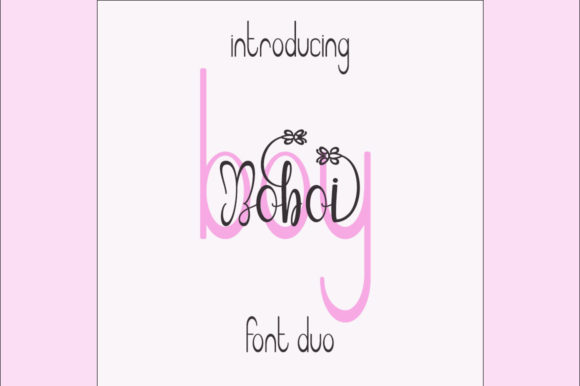
Boboiboy Font: The Sweet and Lovely Duo for Your Design Needs
Are you a designer or crafter looking for the perfect font to bring your project ideas to life? Look no further than the Boboiboy font, a sweet and lovely duo font that’s perfect for any design you can think of. With its warm, romantic, and jolly vibe, this font is sure to turn each of your project ideas into real works of art!
What Makes Boboiboy Font So Special?
The Boboiboy font is a unique and versatile duo font that’s designed to add a touch of sweetness and charm to any design. Its warm and romantic feel makes it perfect for projects that require a personal and emotional touch, such as wedding invitations, greeting cards, and social media graphics. The font’s jolly and playful vibe also makes it ideal for more fun and creative projects, such as posters, flyers, and children’s book illustrations.
Key Features of Boboiboy Font
• Unique Duo Font: The Boboiboy font comes in two styles, making it a versatile and dynamic font that can be used for a wide range of design projects.
• Warm and Romantic: The font’s warm and romantic feel makes it perfect for projects that require a personal and emotional touch.
• Jolly and Playful: The font’s jolly and playful vibe also makes it ideal for more fun and creative projects.
• High-Quality Design: The Boboiboy font is designed with high-quality and precision, ensuring that it looks great in any design.
The Boboiboy font is perfect for designers and crafters who want to add a touch of sweetness and charm to their projects. Whether you’re creating wedding invitations, social media graphics, or children’s book illustrations, this font is sure to bring your project ideas to life. Its versatility and uniqueness make it a great addition to any designer’s or crafter’s font collection.
How to Use Boboiboy Font in Your Designs
Using the Boboiboy font in your designs is easy and straightforward. Here are a few tips to get you started:
• Pair it with Other Fonts: The Boboiboy font pairs well with other fonts, making it easy to create unique and interesting typography.
• Experiment with Colors: The font looks great in a variety of colors, so don’t be afraid to experiment and find the perfect color scheme for your design.
• Use it for Headings and Titles: The Boboiboy font is perfect for headings and titles, adding a touch of sweetness and charm to any design.
Benefits of Using Boboiboy Font
There are many benefits to using the Boboiboy font in your designs. Here are a few:
• Unique and Versatile: The Boboiboy font is a unique and versatile duo font that can be used for a wide range of design projects.
• Time-Saving: The font’s high-quality design and precision ensure that it looks great in any design, saving you time and effort.
• Emotional Connection: The font’s warm and romantic feel helps to create an emotional connection with your audience, making your designs more engaging and effective.
In conclusion, the Boboiboy font is a sweet and lovely duo font that’s perfect for any design you can think of. Its warm, romantic, and jolly vibe makes it ideal for a wide range of design projects, from wedding invitations to children’s book illustrations. With its high-quality design and precision, this font is sure to turn each of your project ideas into real works of art. So why wait? Download the Boboiboy font today and start creating your own beautiful designs!